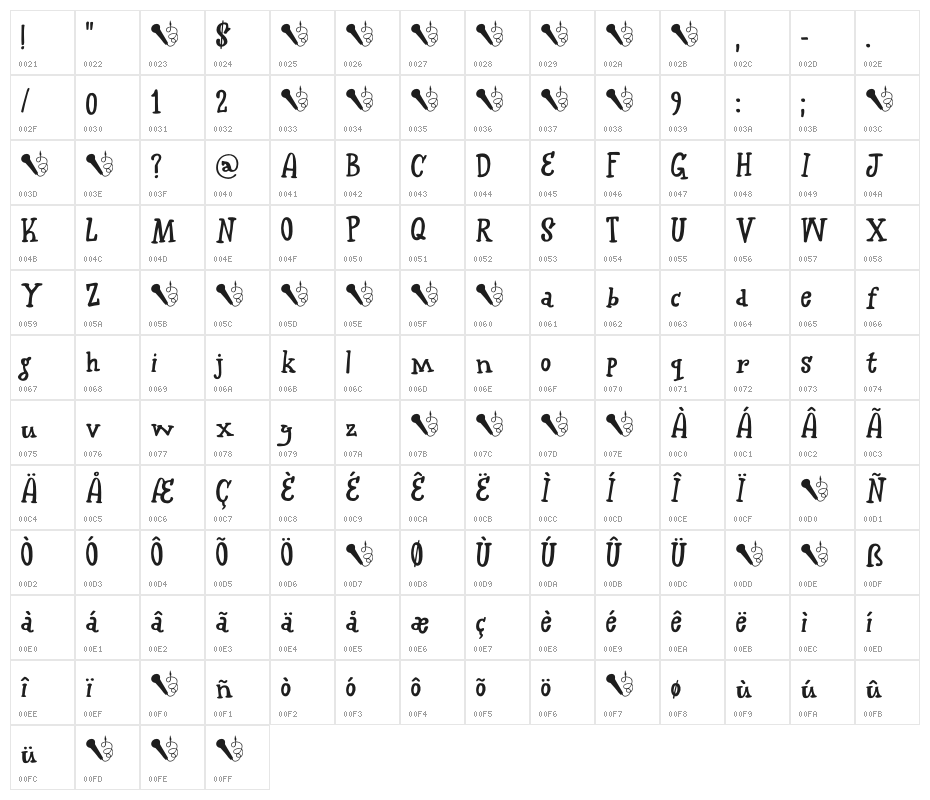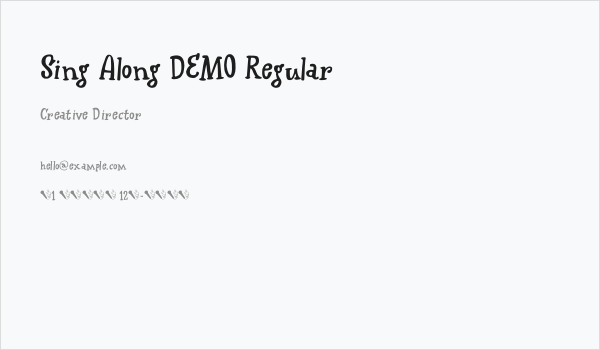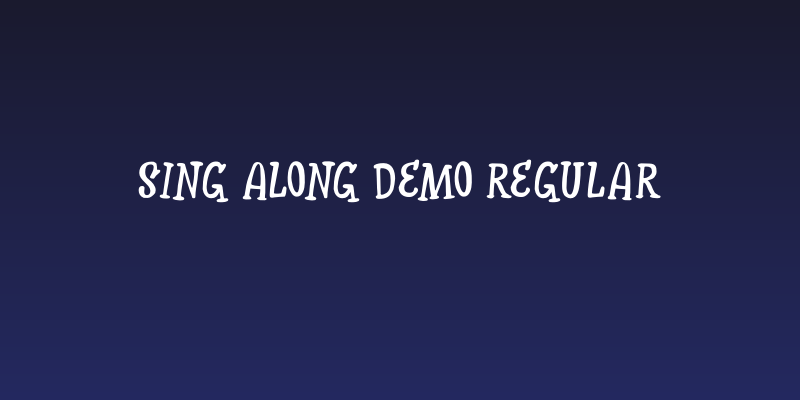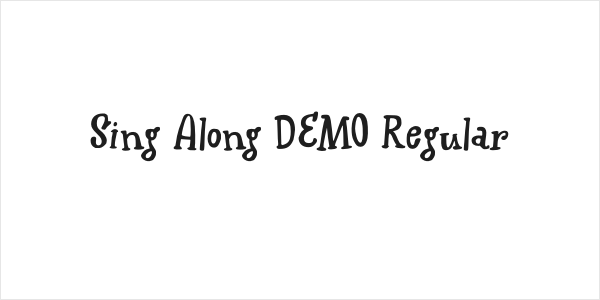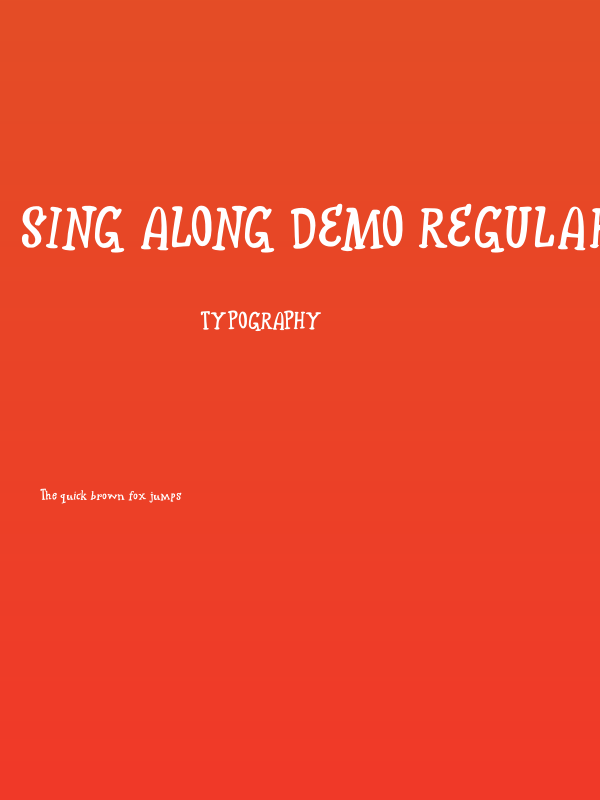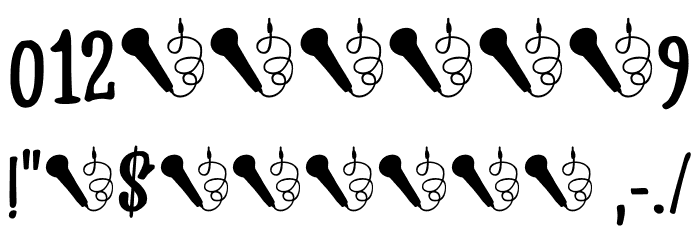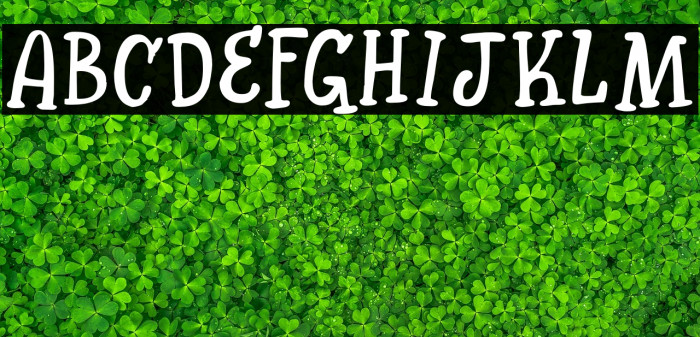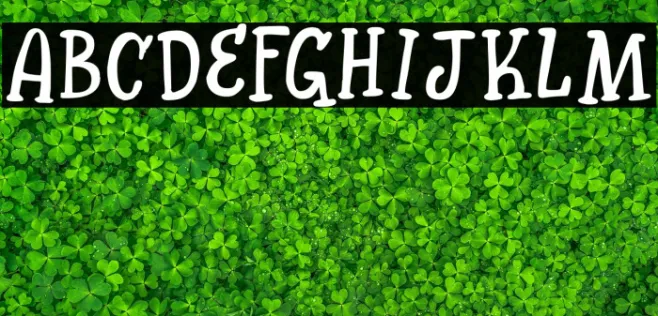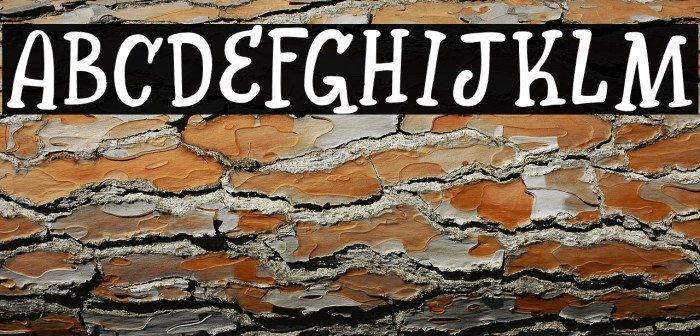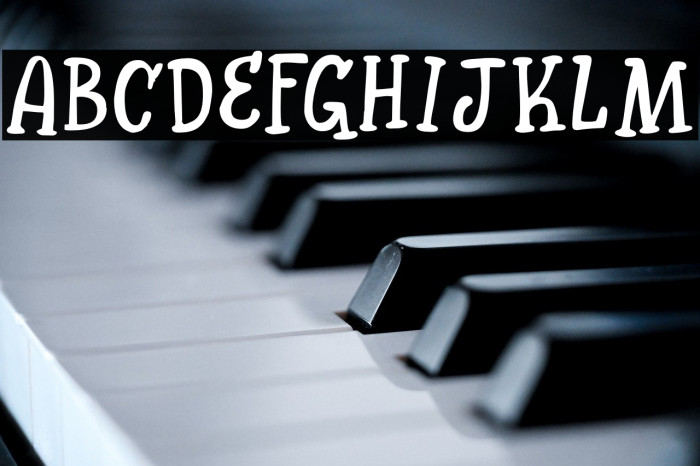
Sing Along DEMO Regular Font
Sing Along DEMO Regular Description
This font features a playful and whimsical style, characterized by its bold and curvy letterforms. The uppercase letters have a slightly exaggerated height, giving them a lively and dynamic appearance. The lowercase letters maintain a consistent flow, with some characters having unique, quirky tails and loops. The numbers are bold and rounded, matching the overall playful theme. Special characters are creatively designed, incorporating elements that add to the font's fun and engaging personality. This font is ideal for projects that require a touch of humor and creativity.
| Proposed Projects | Perfect for children's books, playful branding, party invitations, and creative posters. |